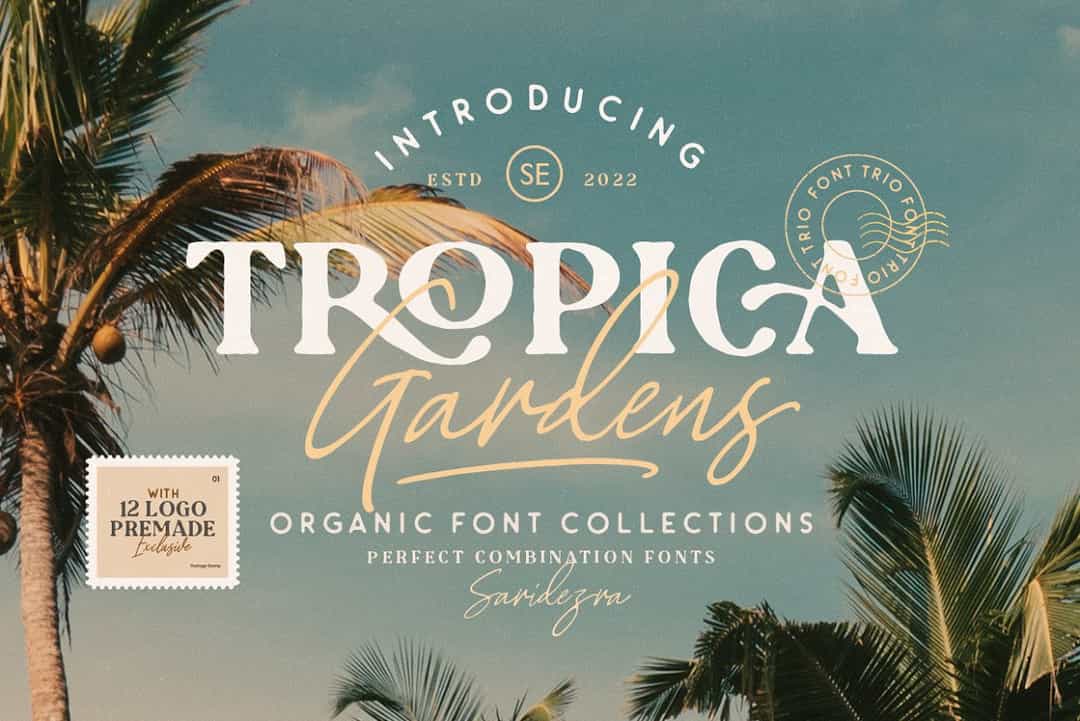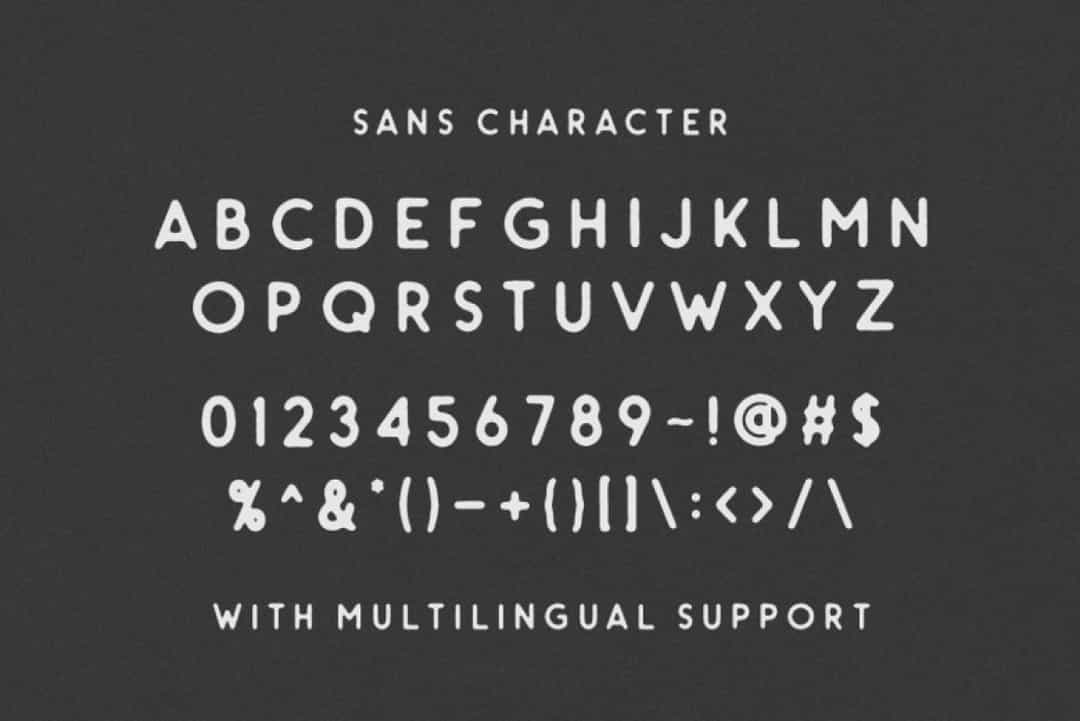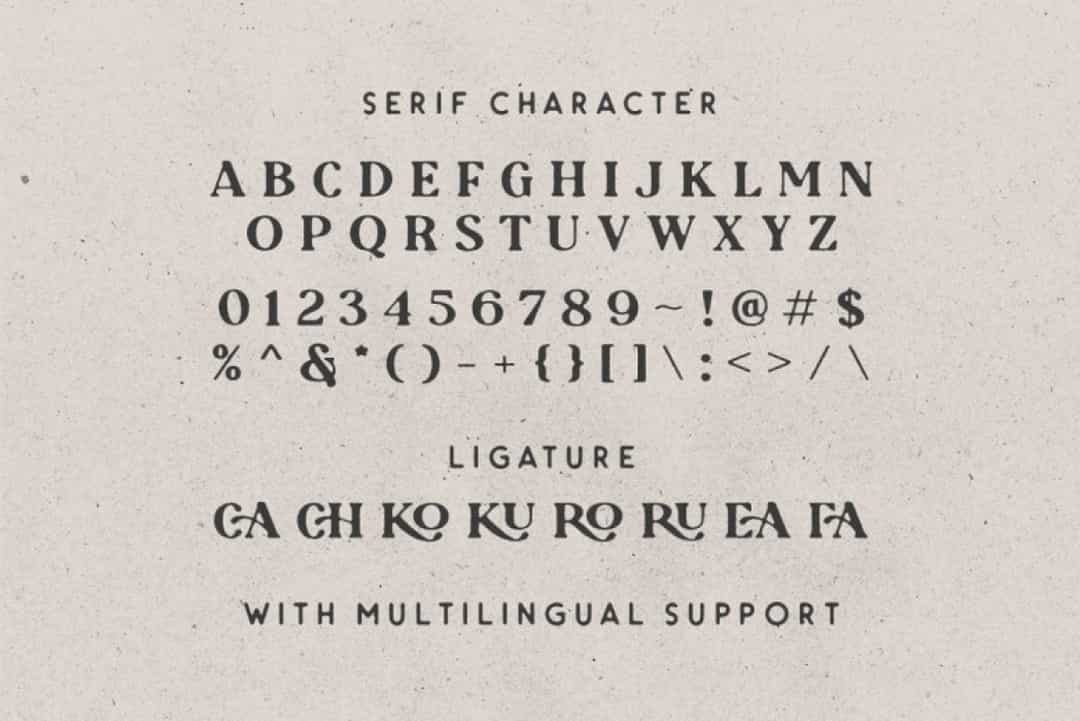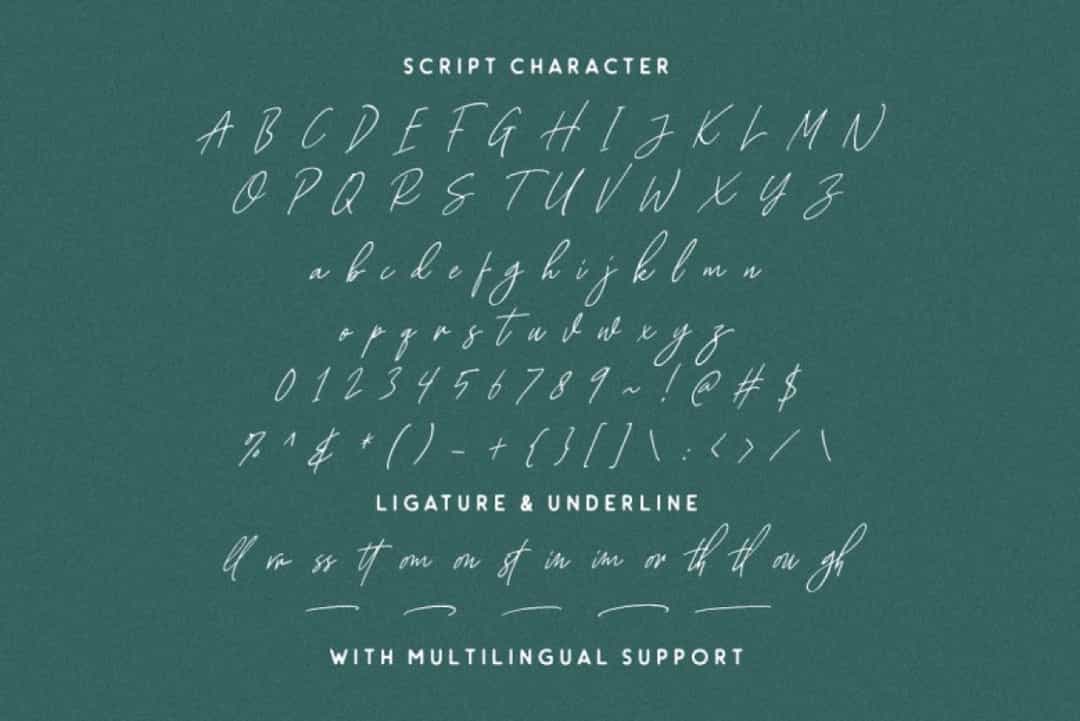
Tropica Gardens Font
Discover Tropica Gardens Font, part of the   Sans Serif  Handwritten  Serif collection—a versatile and unique font perfect for adding a personal touch to your projects. Download it for free and enjoy crafting designs with style, from invitations to social media posts. This font is available exclusively for personal use, giving you the freedom to create without limits. Unlock your creativity with Tropica Gardens Font today!
Tropica Gardens font is an indispensable combination of three fonts – bold serif, rounded sans and authentic Signature font. Support for multilingual text is included within this font family as well as multilingual symbol and number support; therefore making this font perfect for use across a range of needs and purposes.